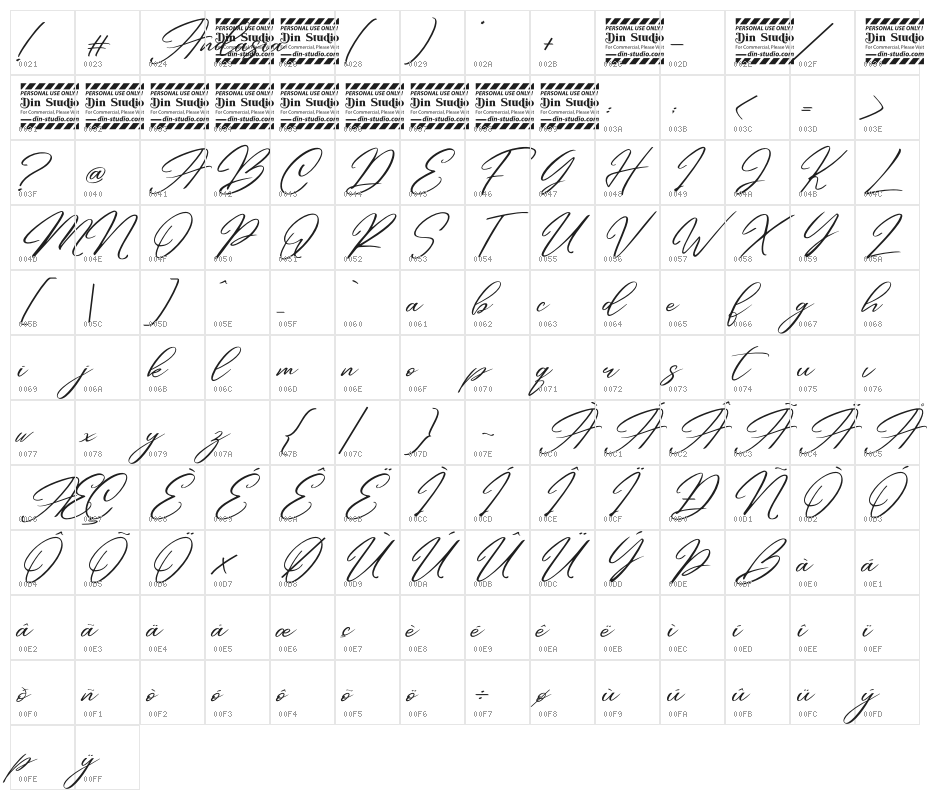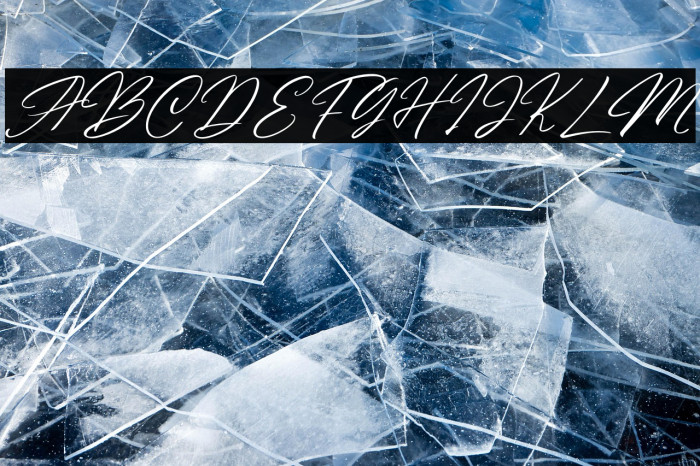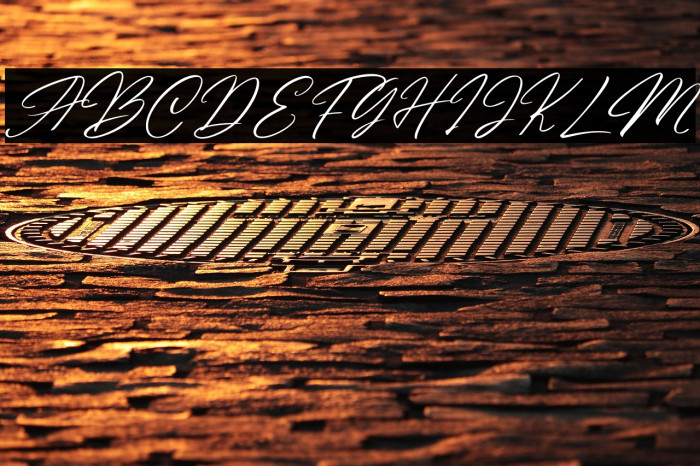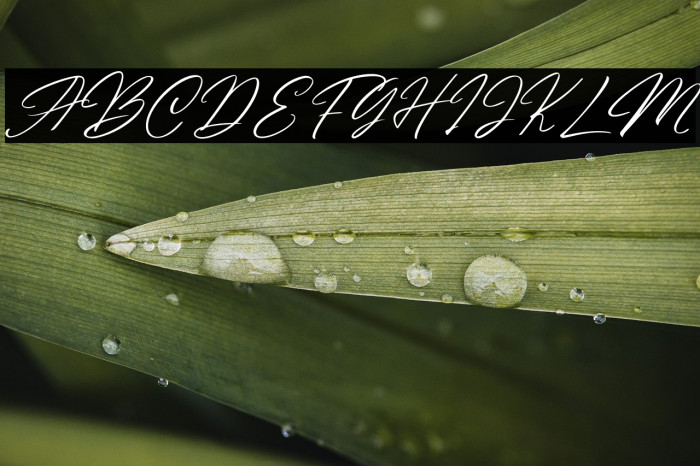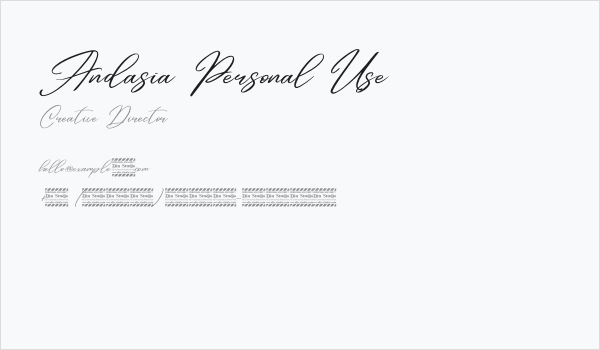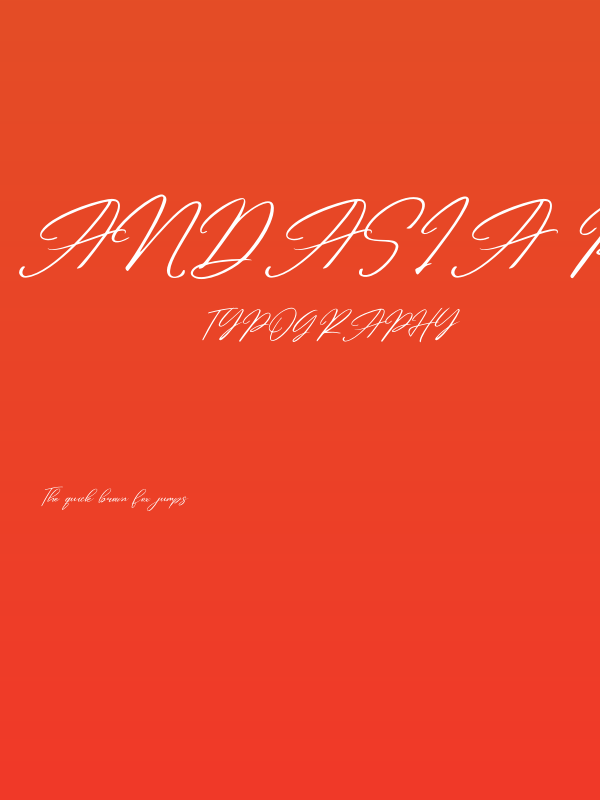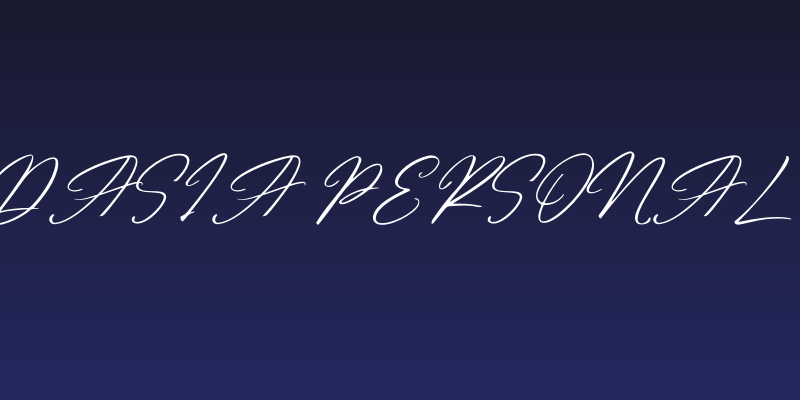
Andasia Personal Use Font
Andasia Personal Use Description
This elegant script font features flowing, interconnected letters with a calligraphic style. The uppercase characters are tall and graceful, while the lowercase letters maintain a consistent, smooth flow. The font exhibits a classic, handwritten appearance with a modern twist, making it suitable for a variety of design applications. The strokes are moderately thick, providing a balanced contrast that enhances readability while maintaining an artistic flair. The special characters are designed to complement the overall aesthetic, ensuring a cohesive look across different text elements.